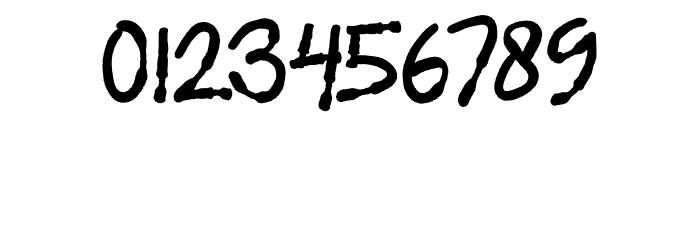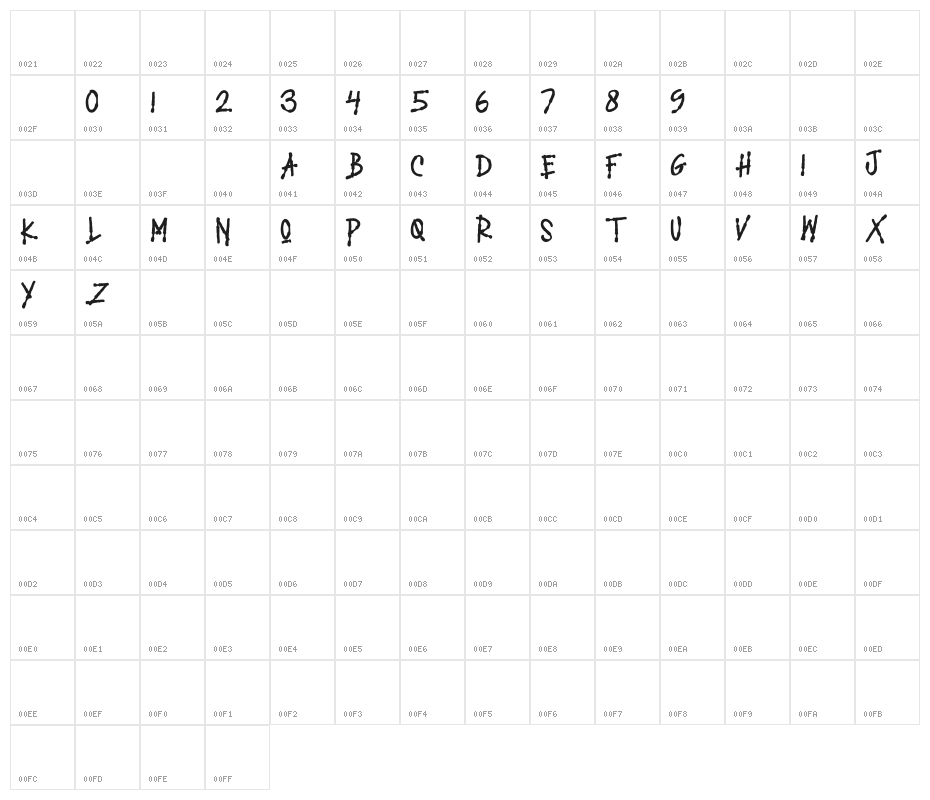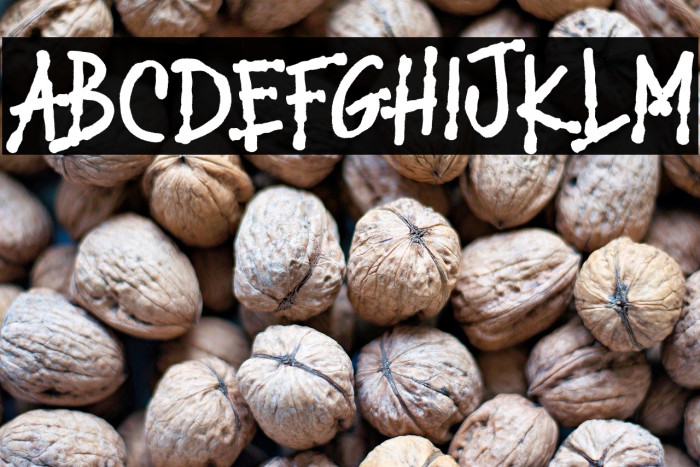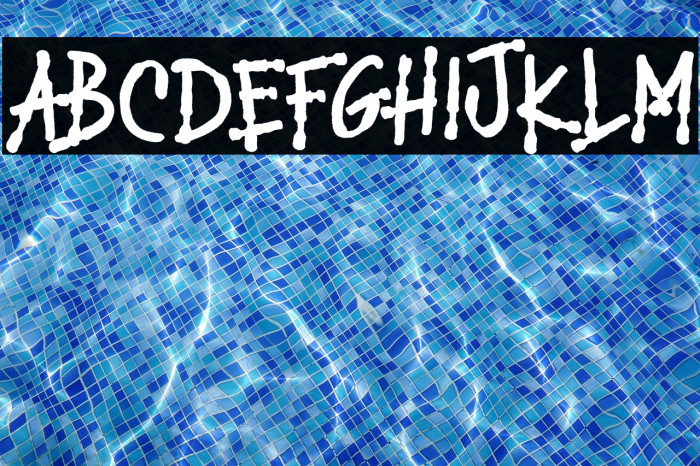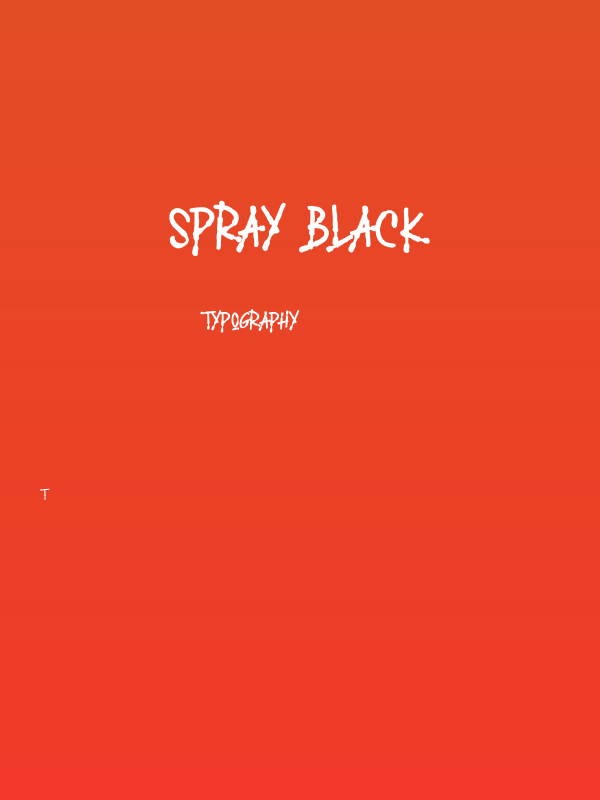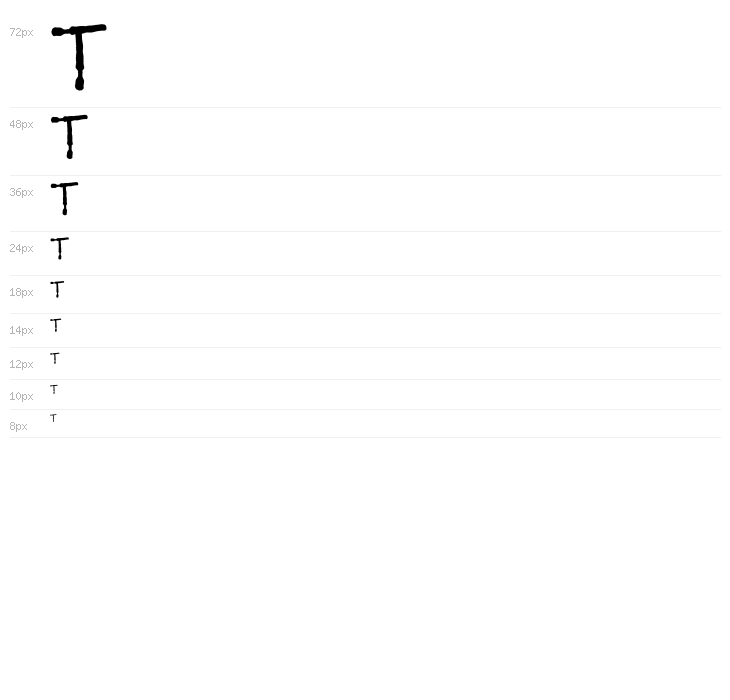
SPRAY BLACK Font
SPRAY BLACK Description
This font exudes a bold, urban aesthetic reminiscent of graffiti art. The characters are designed with a spray-painted effect, featuring uneven edges and a textured appearance that mimics the look of paint on a wall. The uppercase letters are prominent and dynamic, while the numbers maintain the same artistic style. This font captures a sense of rebellion and creativity, making it ideal for projects that aim to convey a street-smart, edgy vibe. The overall design is both eye-catching and expressive, perfect for making a statement.
| Overall Style | Urban, Edgy, Artistic |
| Proposed Projects | Ideal for street art projects, urban-themed posters, edgy branding, and music album covers. |